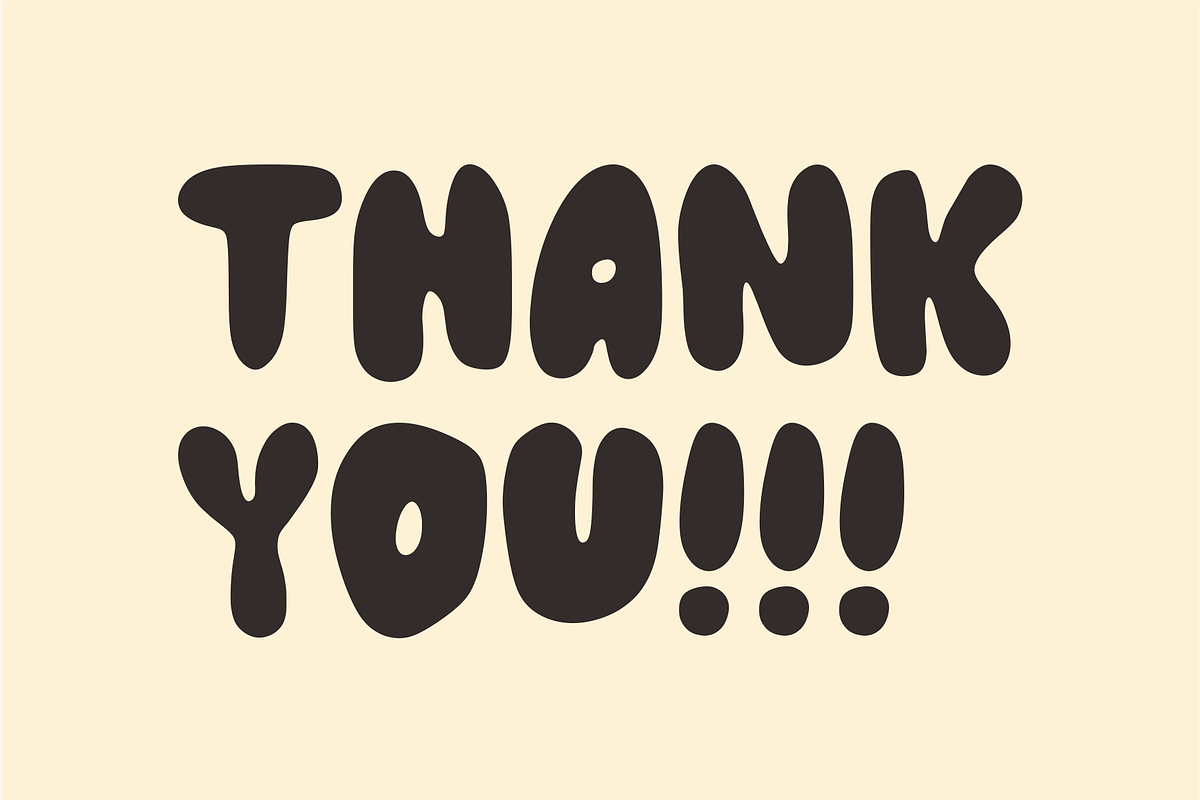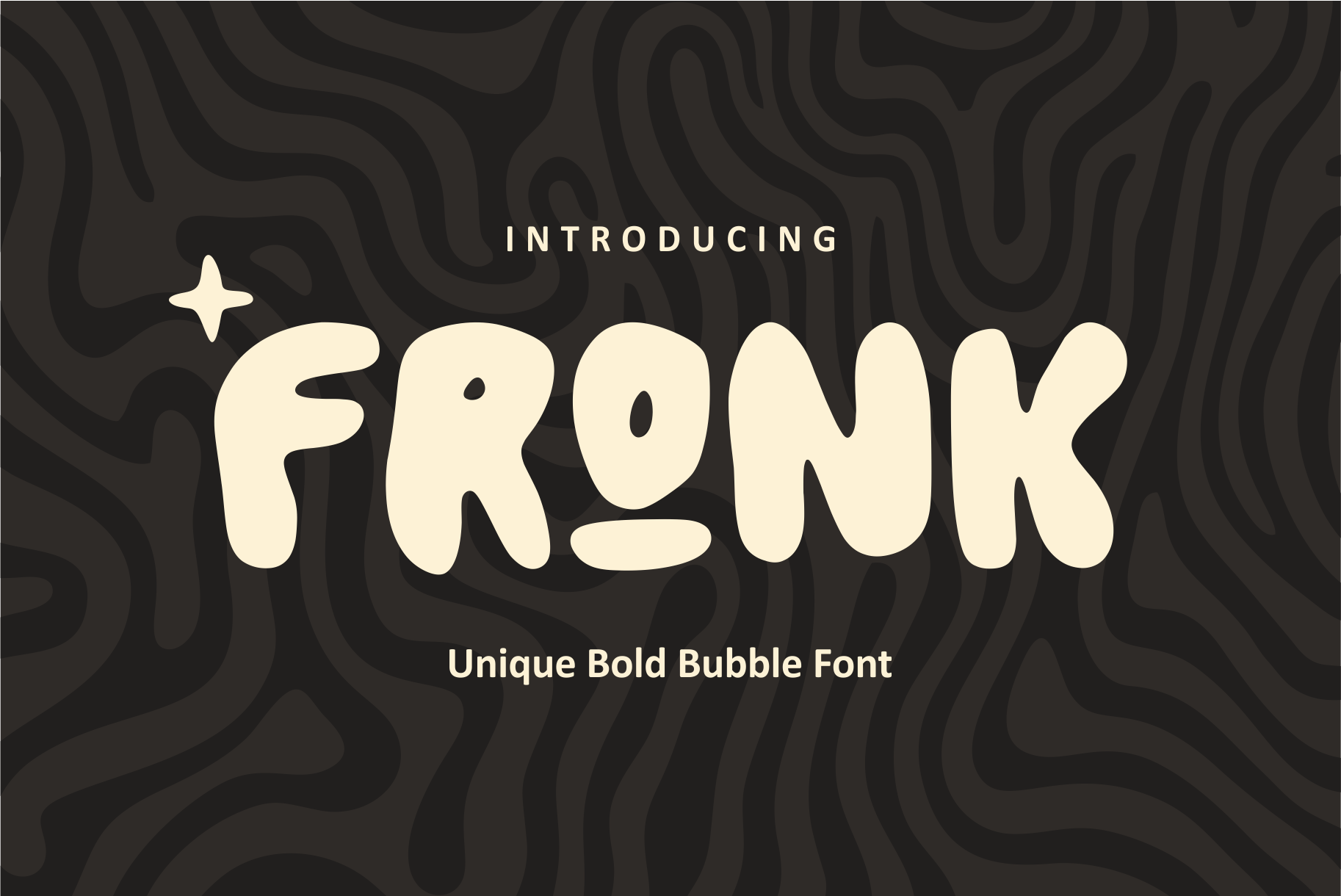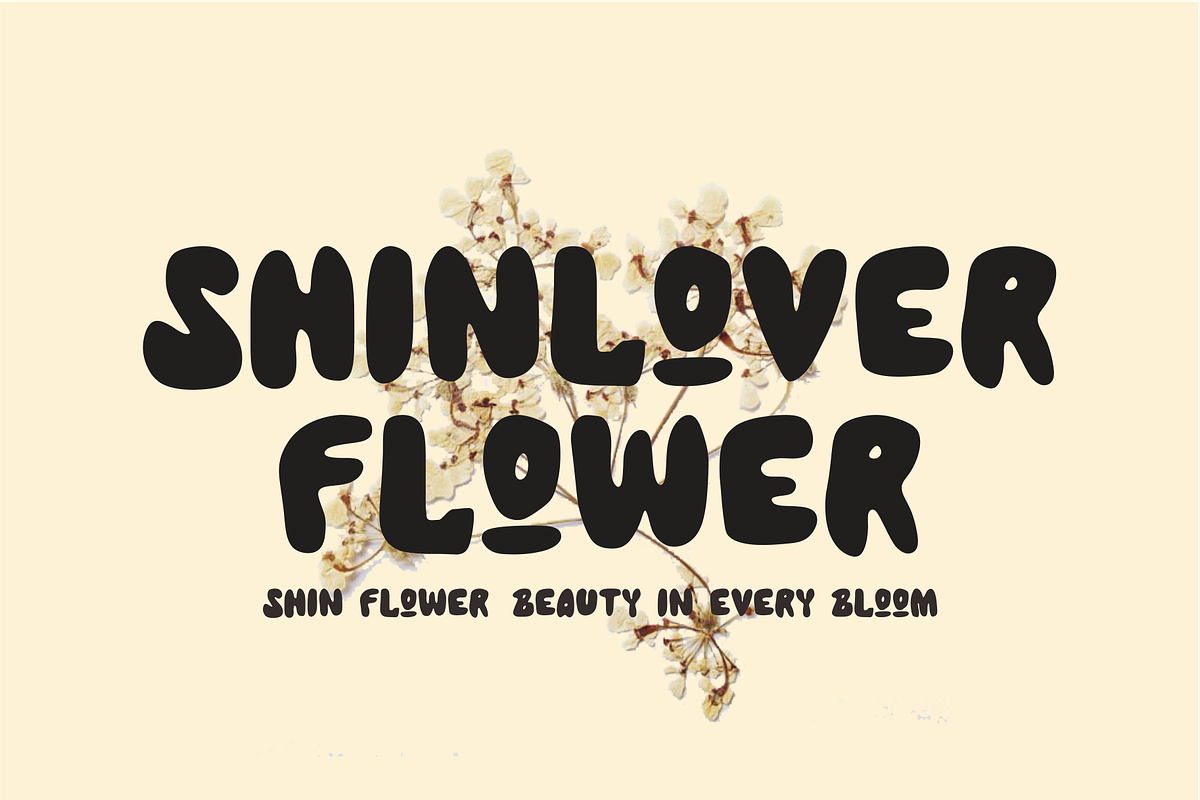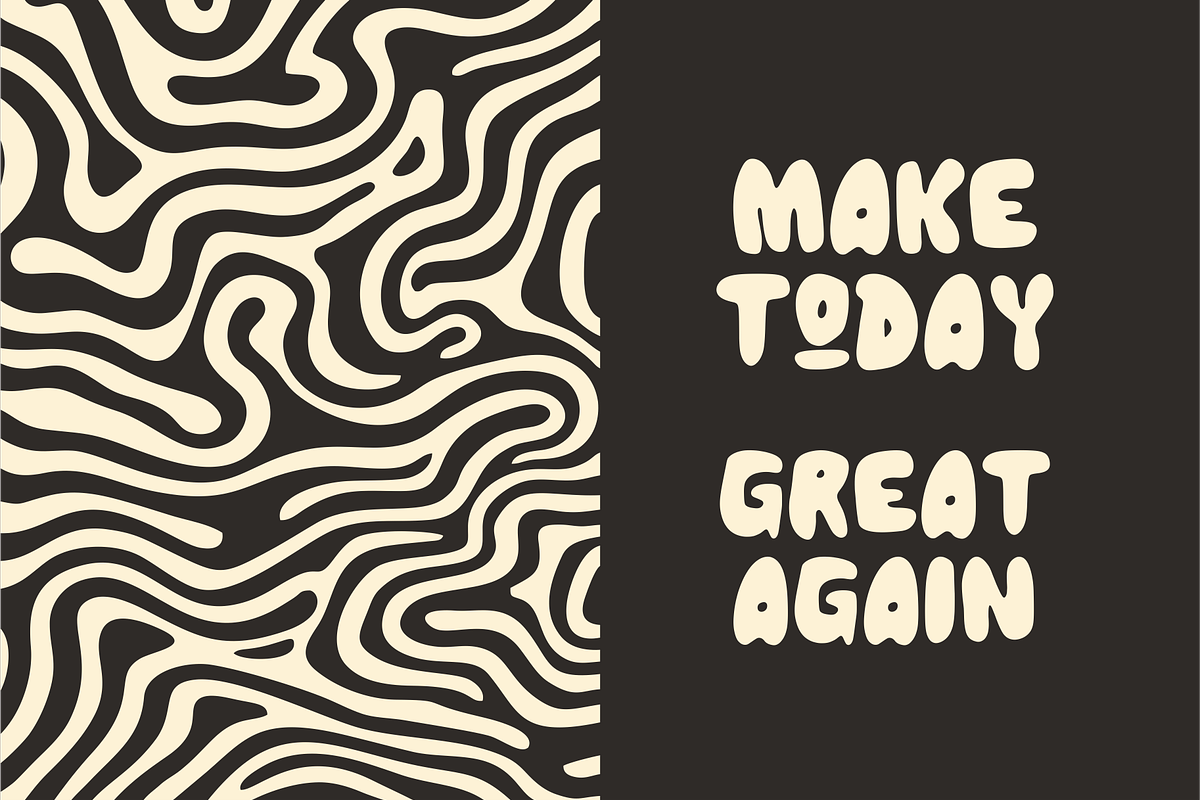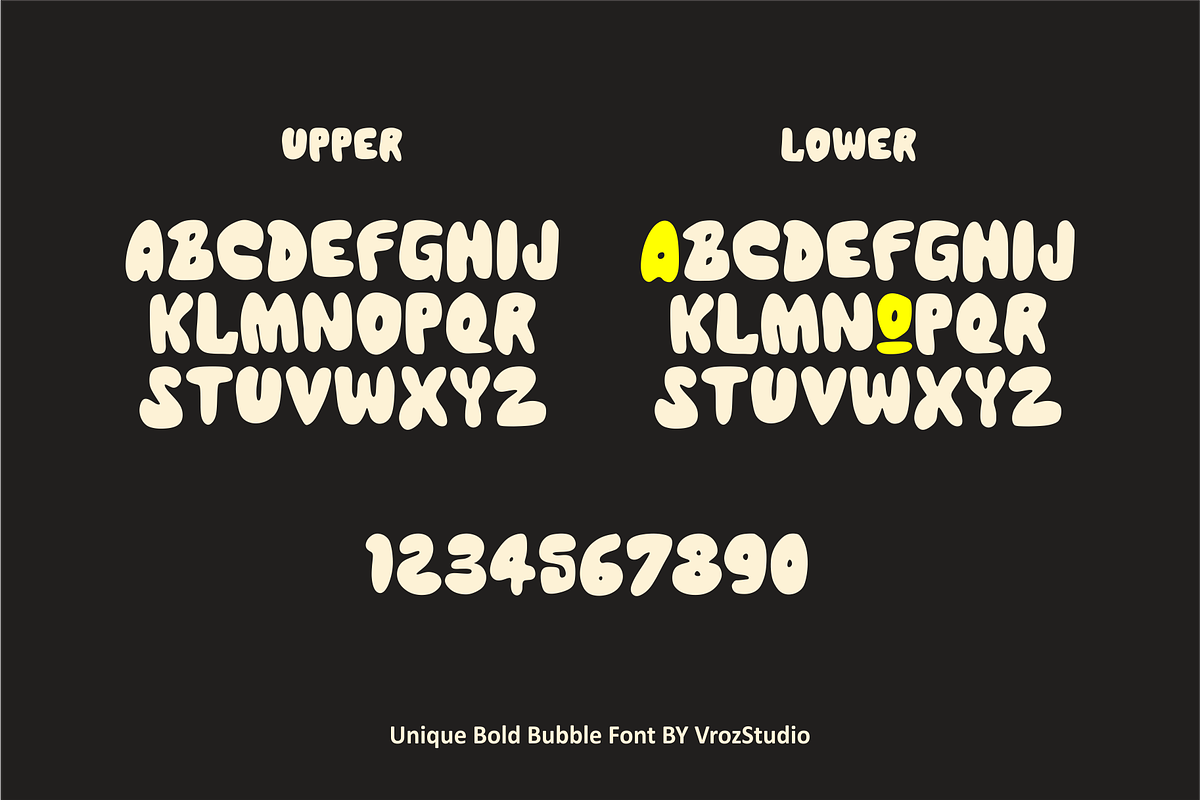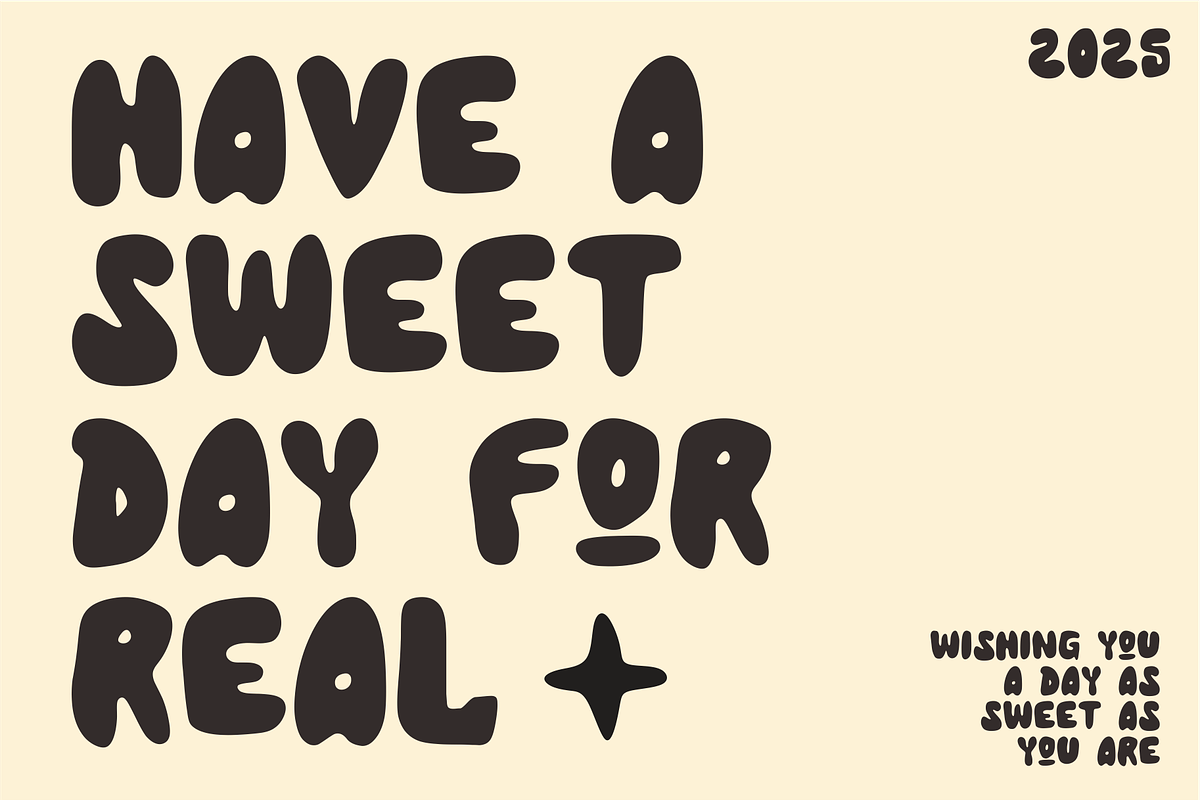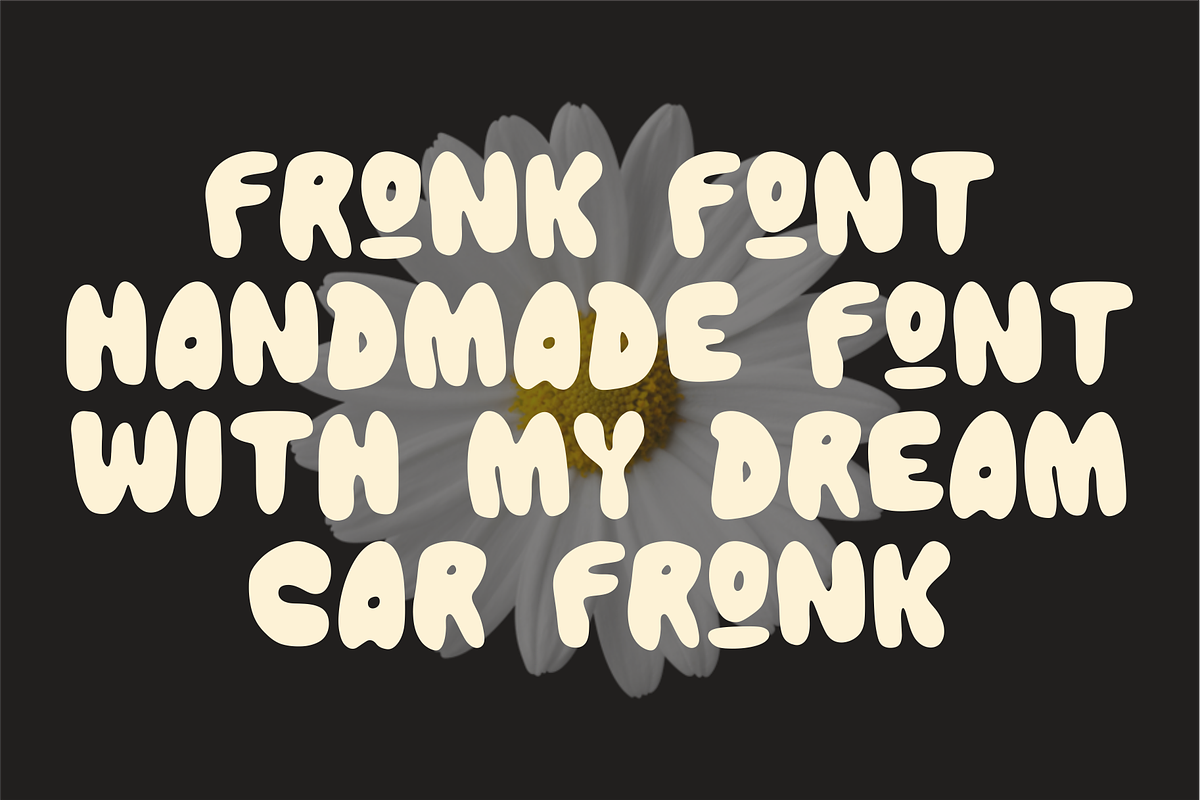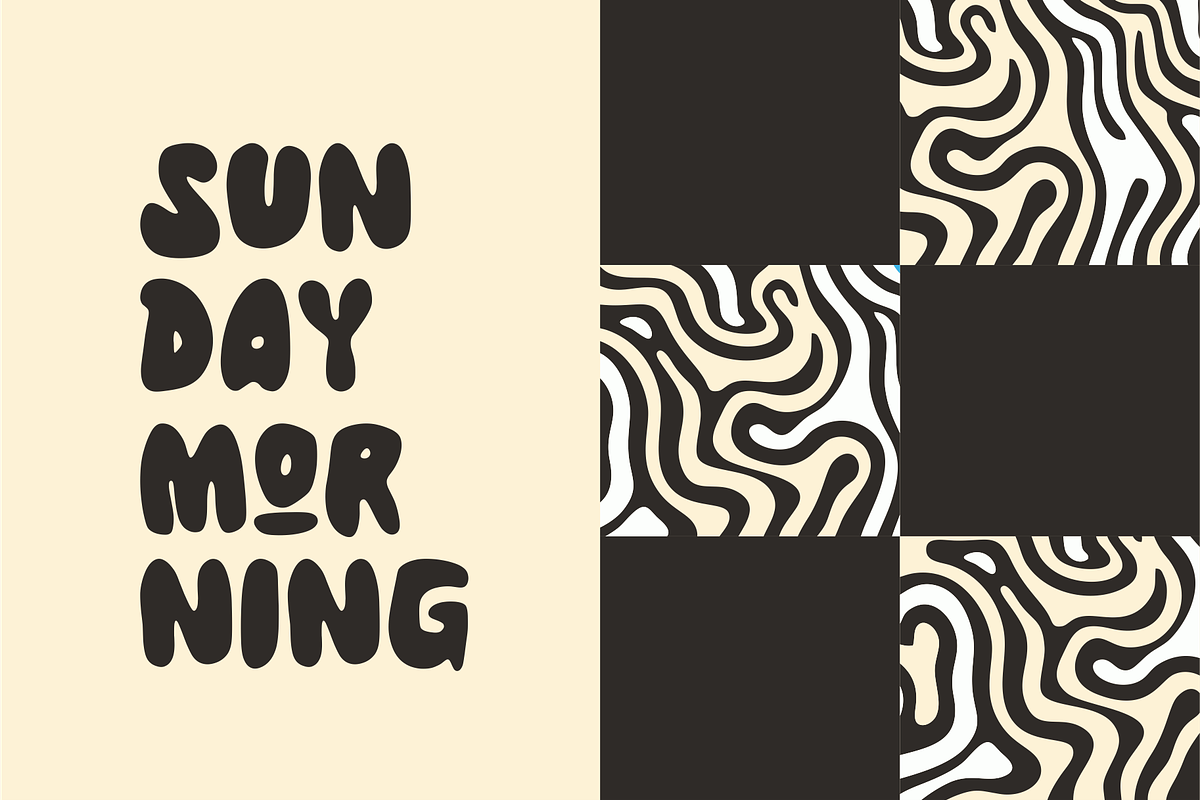
FRONK – Unique Bold Bubble Font
FRONK is a fun, bubble letter font designed to bring playful energy to your projects. Hand-drawn with love, it’s perfect for anyone who wants to add a cheerful and youthful vibe to their work. Great for headers, posters, album covers, social media, logos, book titles, games, and more!